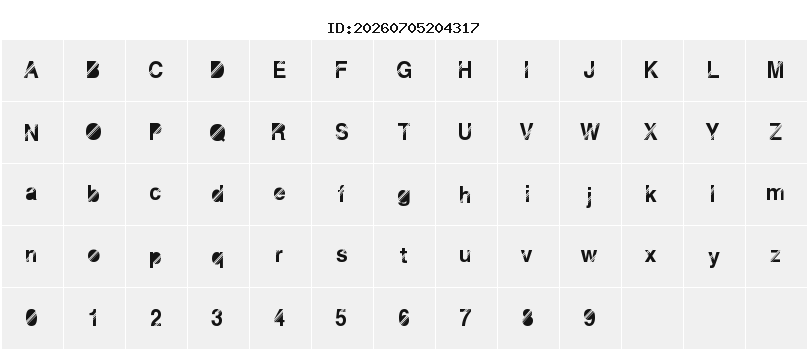
• Font Name: DiscoNight
• Designer: Max Infeld
• Manufacturer: Xerographer Fonts
• Description: This font at Xerographer Studios chico,CA
About DiscoNight.ttf
DiscoNight.ttf is a modern, elegant sans-serif font designed for ultimate readability and visual harmony. Perfect for branding, headlines, web design, and print materials.